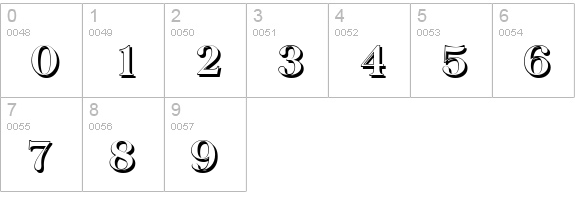
BaskervilleShadow-Bold Font Details
BaskervilleShadow-Bold is a strong, high-contrast variant in the BaskervilleShadow typeface family \xE2\x80\x94 well suited to headlines, attention-grabbing titles, and strong calls-to-action.
BaskervilleShadow-Bold is a stunning and sophisticated typeface that exudes elegance and class. This bold variant of the BaskervilleShadow font family features striking serifs and a timeless design that commands attention. With its strong presence and distinctive style, BaskervilleShadow-Bold is perfect for creating impactful headlines, titles, and logos that leave a lasting impression. The best part? BaskervilleShadow-Bold is available for free download at FontsMarket.com. This means you can add this premium font to your collection without having to spend a penny. Whether you're working on a branding project, editorial design, or any other creative endeavor, BaskervilleShadow-Bold is a versatile and eye-catching choice that will elevate your work to the next level. Download it today and experience the beauty and power of this exceptional typeface.